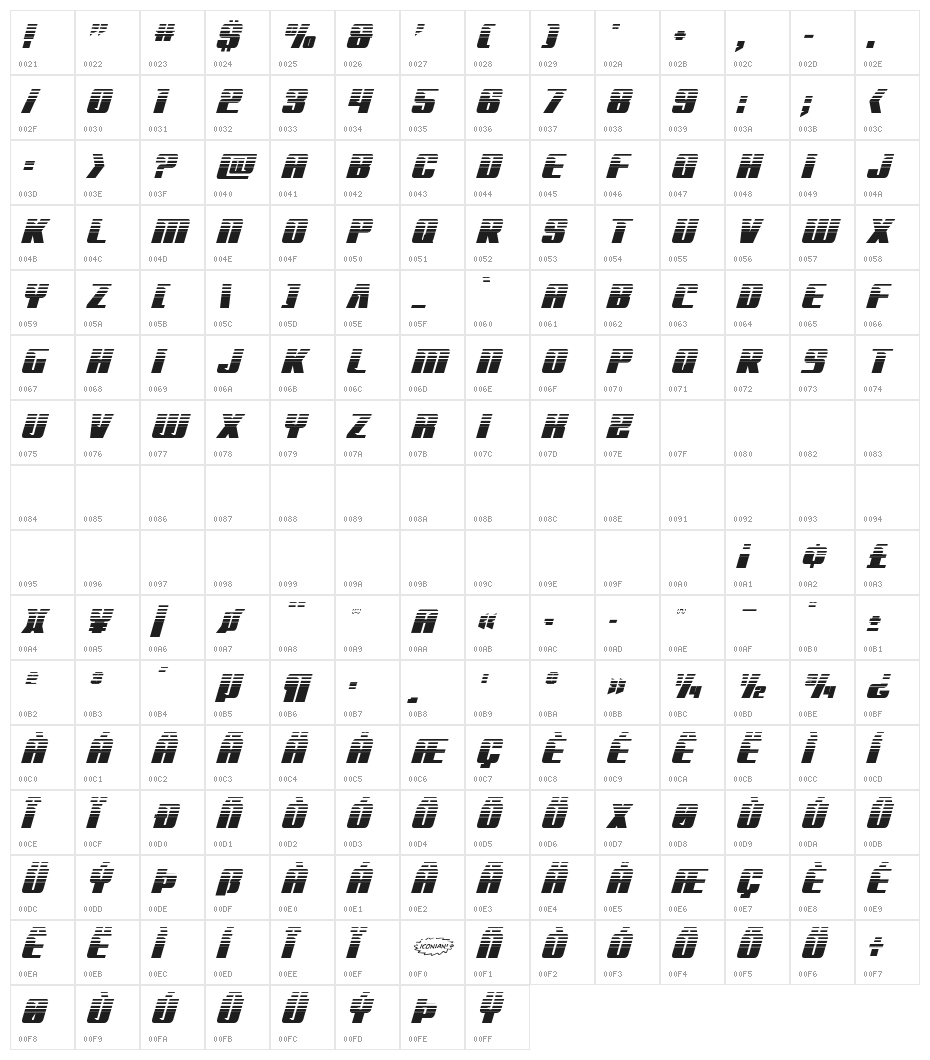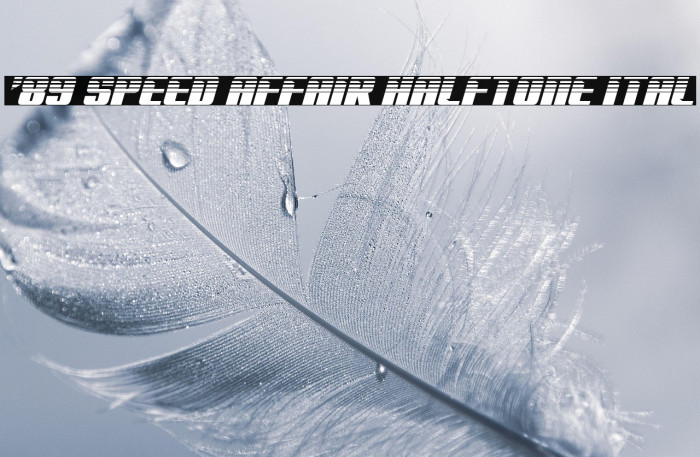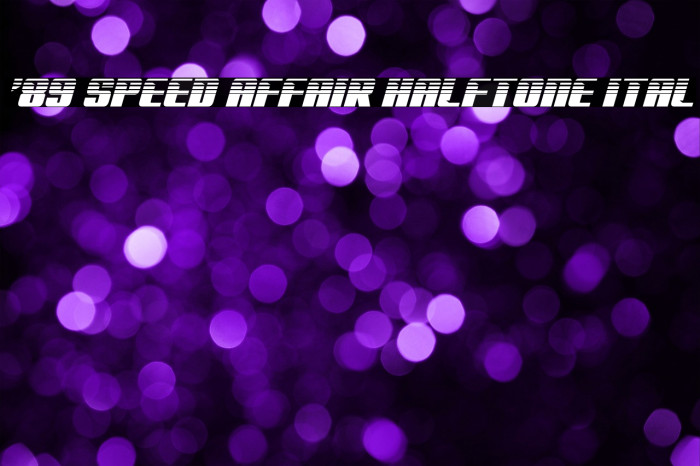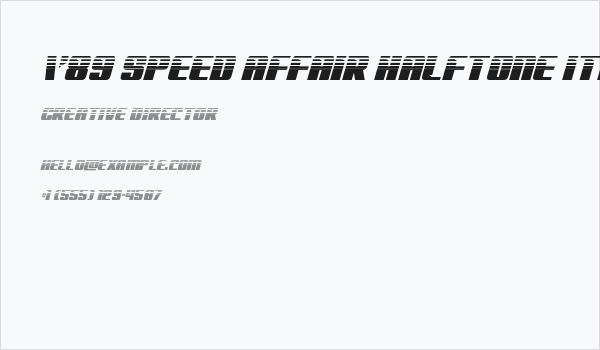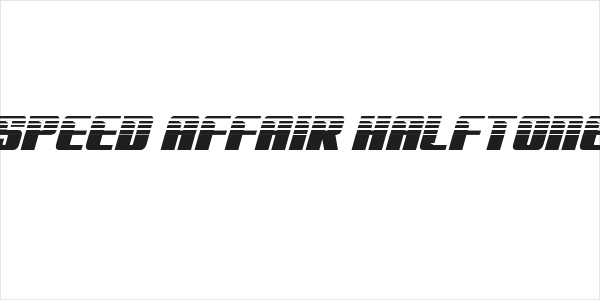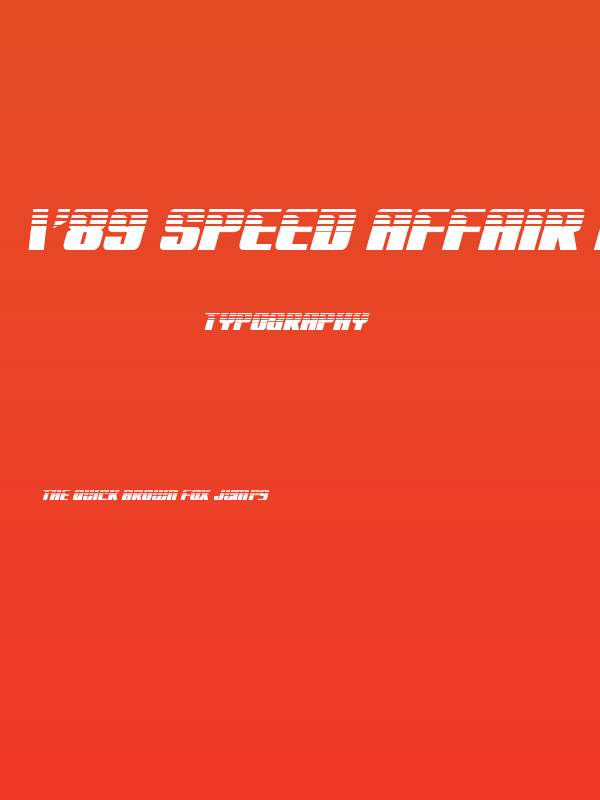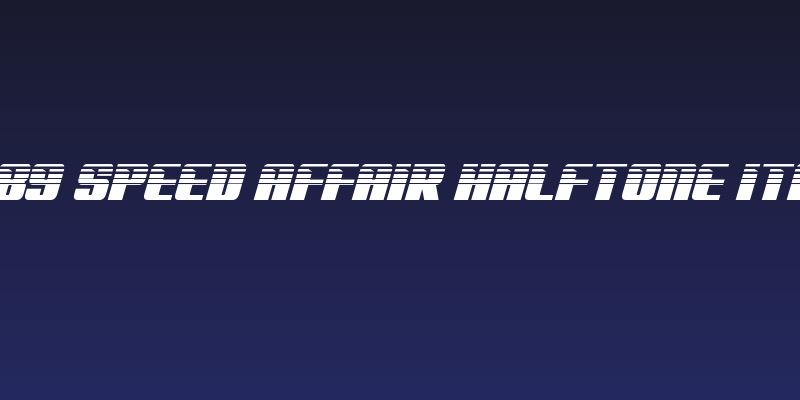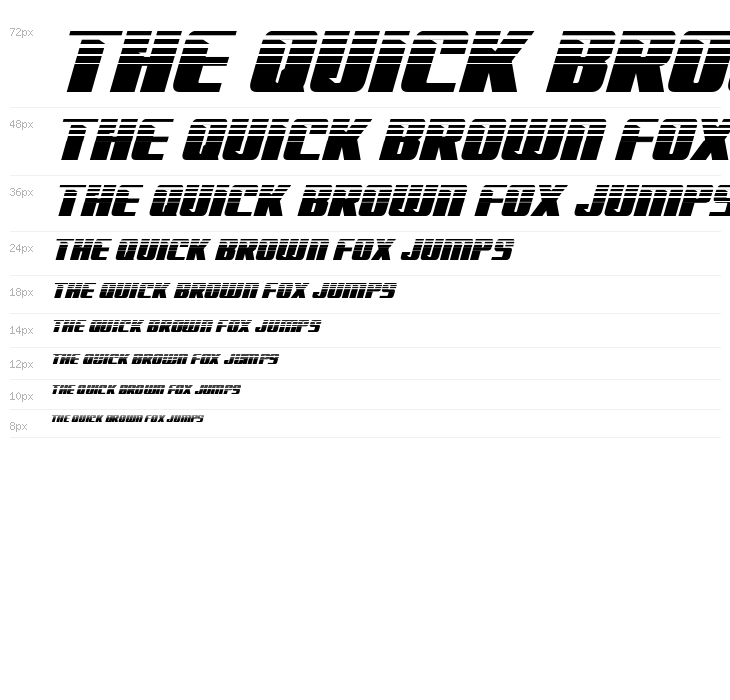
'89 Speed Affair Halftone Ital Font
'89 Speed Affair Halftone Ital Description
This font features a bold, dynamic style with a distinct halftone effect that gives it a sense of speed and movement. The characters are slanted, adding to the impression of motion, and the bold strokes are interrupted by horizontal lines that create a unique visual texture. The uppercase letters are particularly striking, with a strong presence that commands attention. The numbers and special characters maintain the same energetic style, making this font suitable for projects that require a modern, edgy look.
| Proposed Projects | Ideal for sports branding, automotive advertisements, dynamic posters, and modern digital designs. |